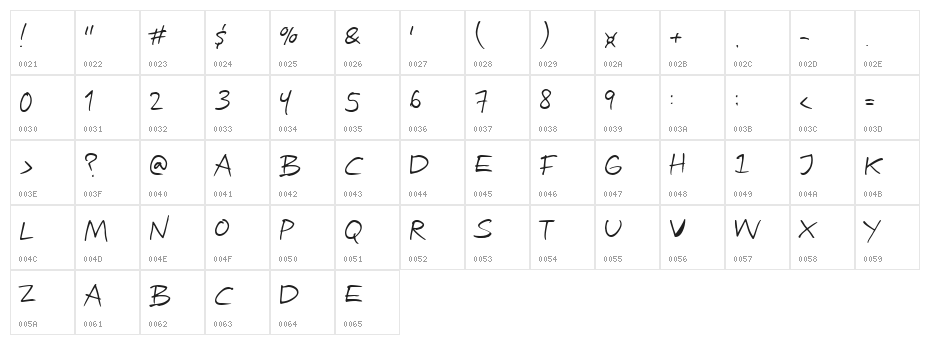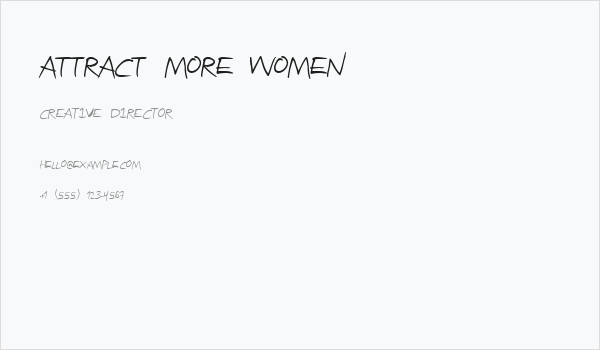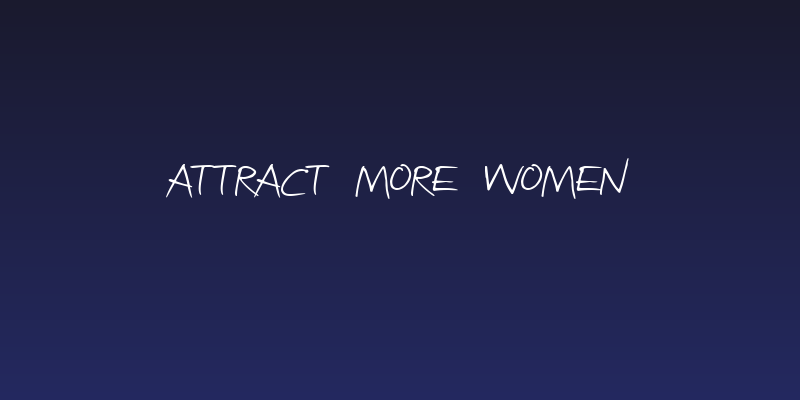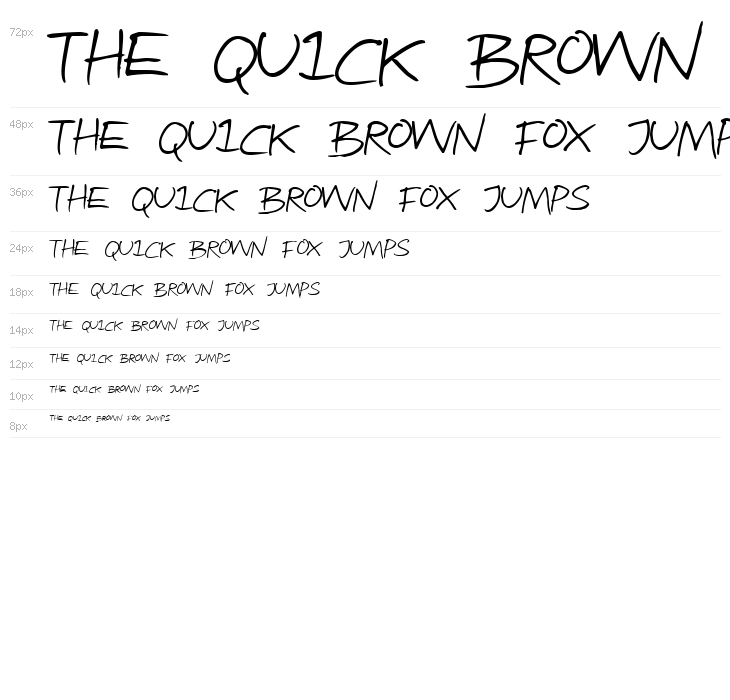
Attract more women Font
Attract more women Description
This font features a dynamic and energetic handwritten style, characterized by its fluid and slightly irregular strokes. The uppercase letters are bold and expressive, while the lowercase letters maintain a consistent flow, adding a personal touch to the text. Numbers and special characters follow the same lively aesthetic, making the font versatile for various applications. The overall appearance is casual yet impactful, suitable for projects that require a personal or informal tone.
| Proposed Projects | Ideal for greeting cards, invitations, personal branding, and creative projects that require a personal touch. |